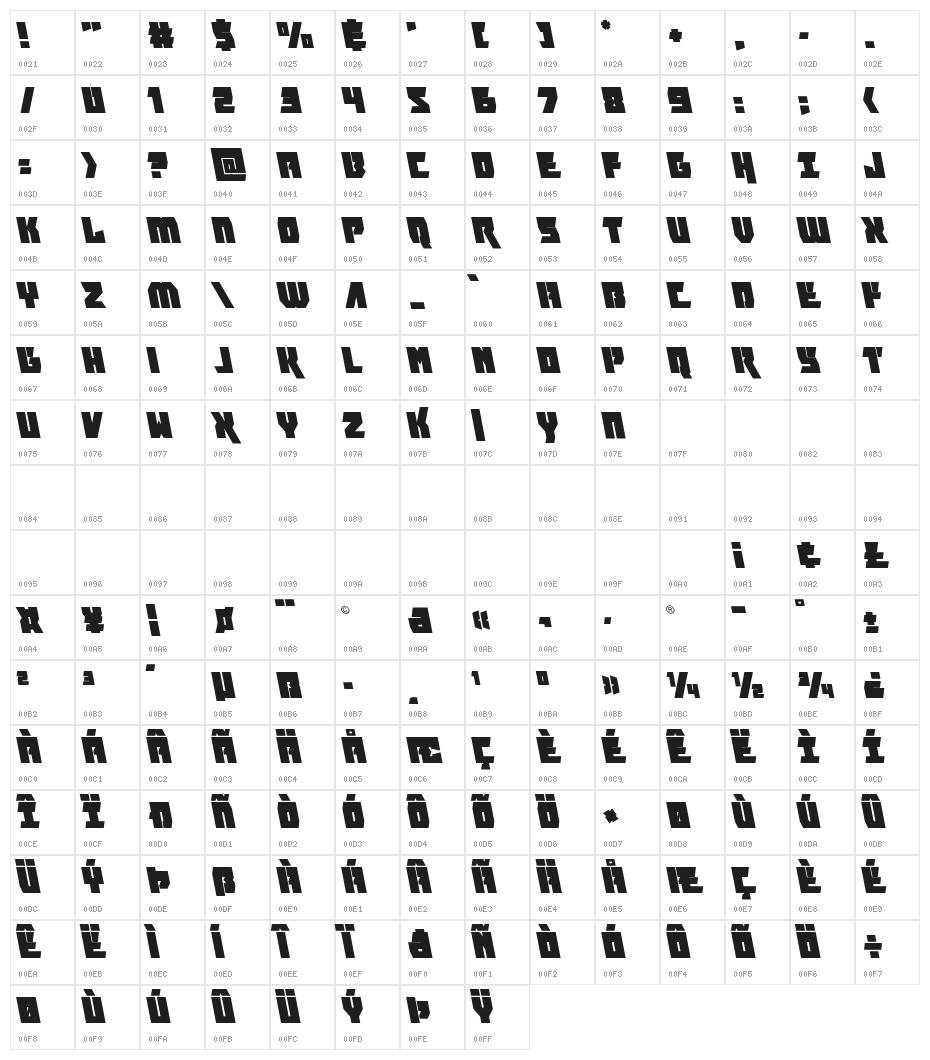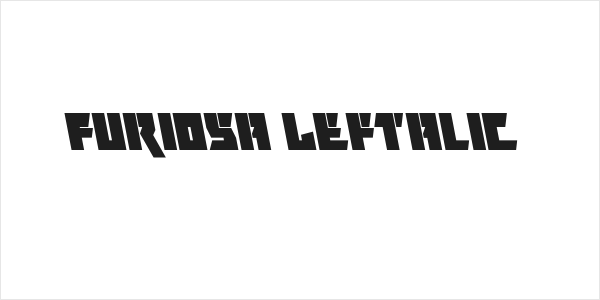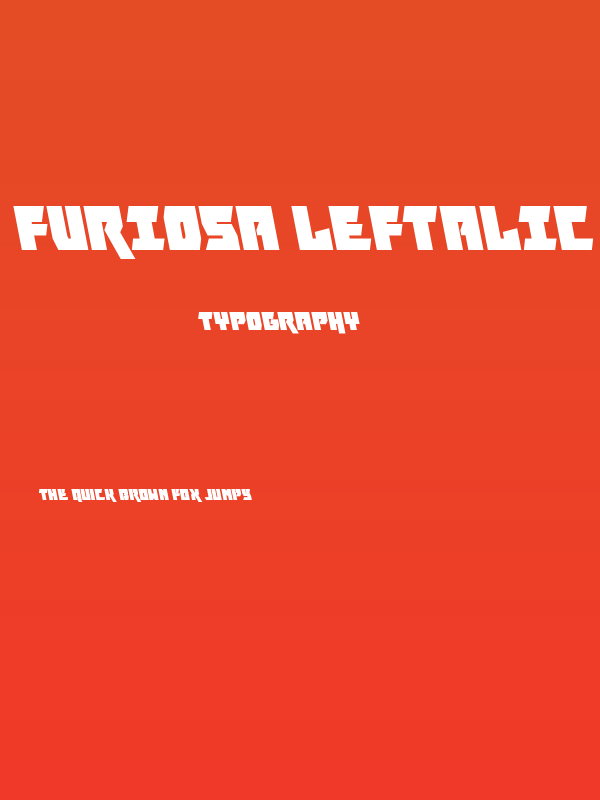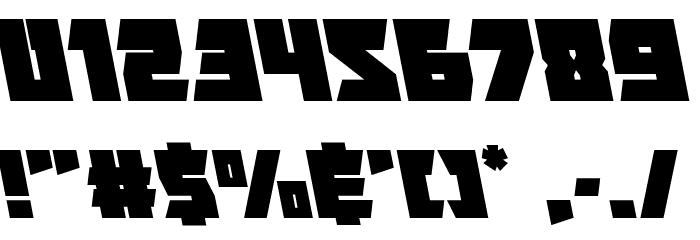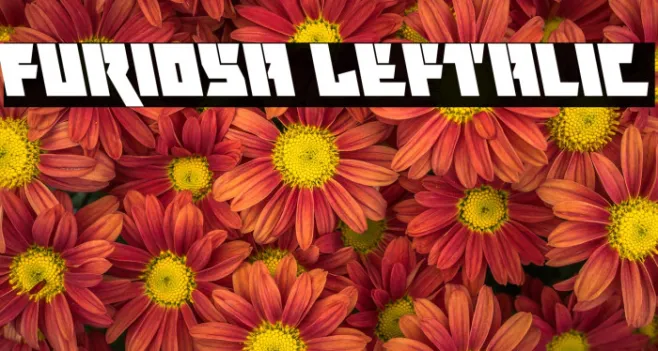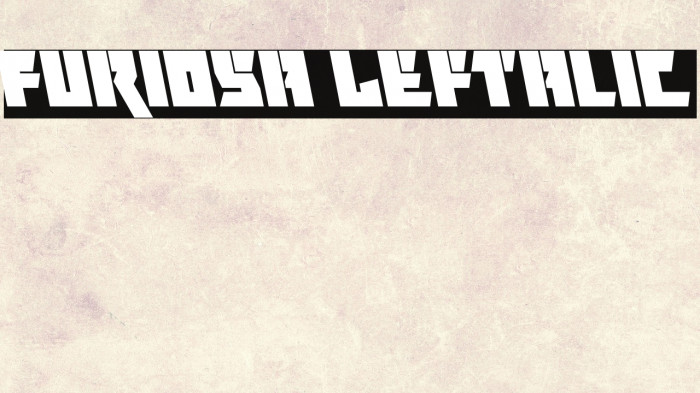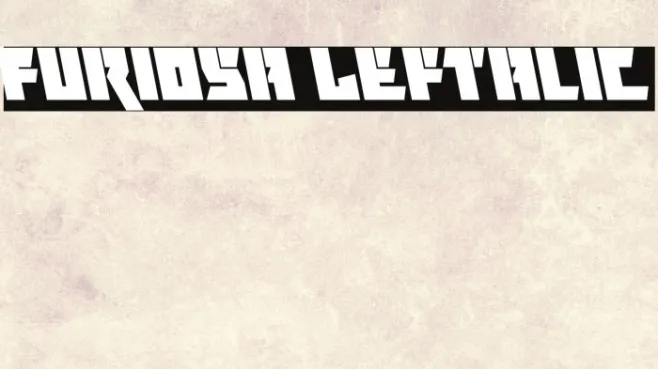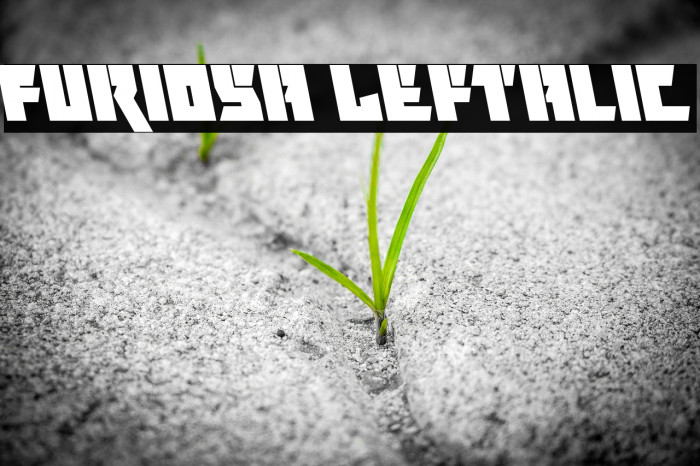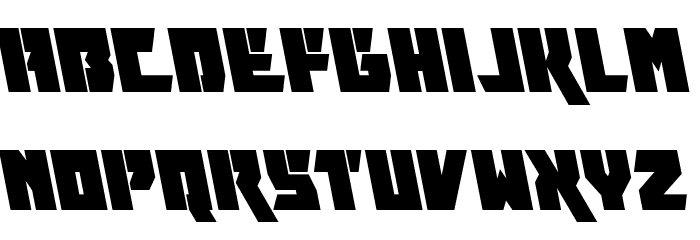
Furiosa Leftalic Font
Furiosa Leftalic Description
This font features a bold and angular design with a distinctly futuristic and aggressive appearance. The characters are heavily stylized with sharp edges and geometric shapes, creating a sense of movement and energy. The uppercase and lowercase letters maintain a consistent style, with the uppercase being more prominent and commanding. The numbers and special characters follow the same design principles, ensuring uniformity across the font. Its unique style makes it stand out, ideal for projects that require a strong visual impact.
| Proposed Projects | Ideal for video game titles, movie posters, branding for tech companies, and any project needing a strong, modern aesthetic. |